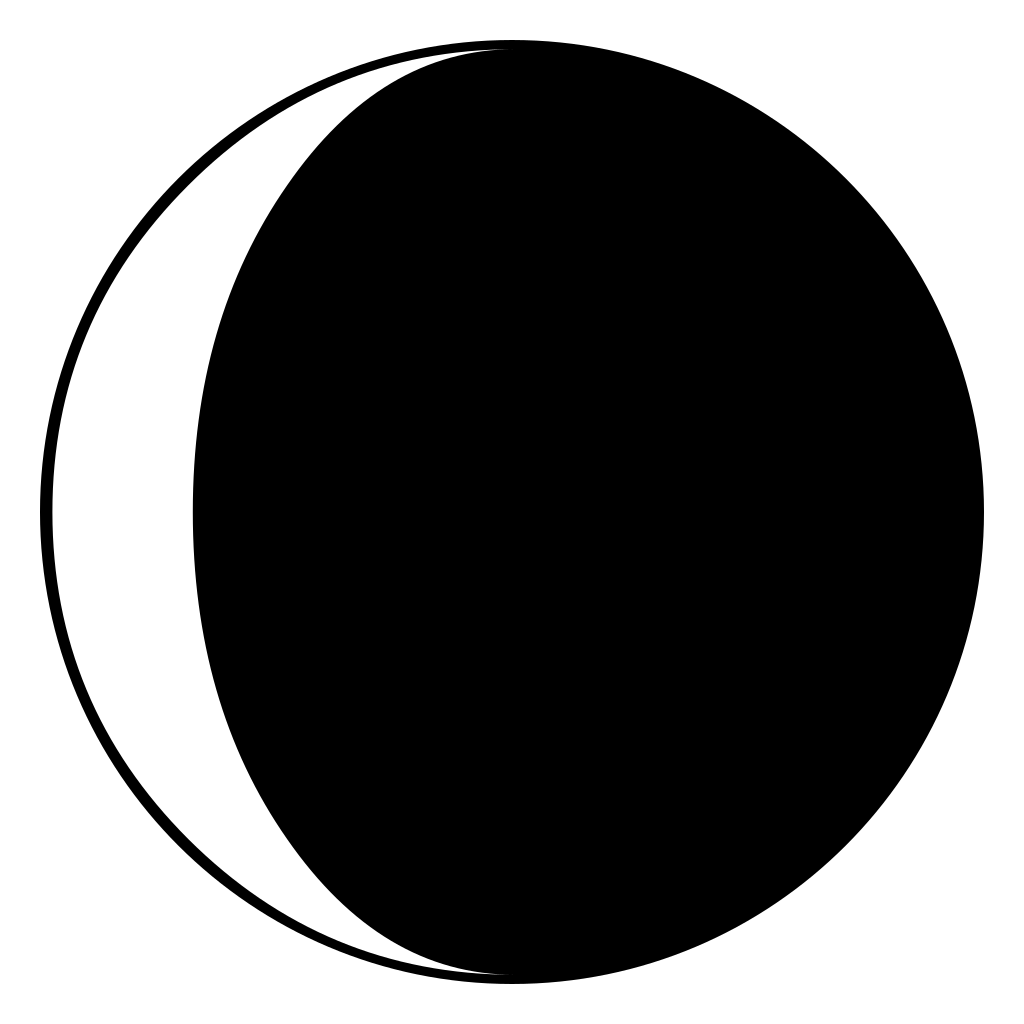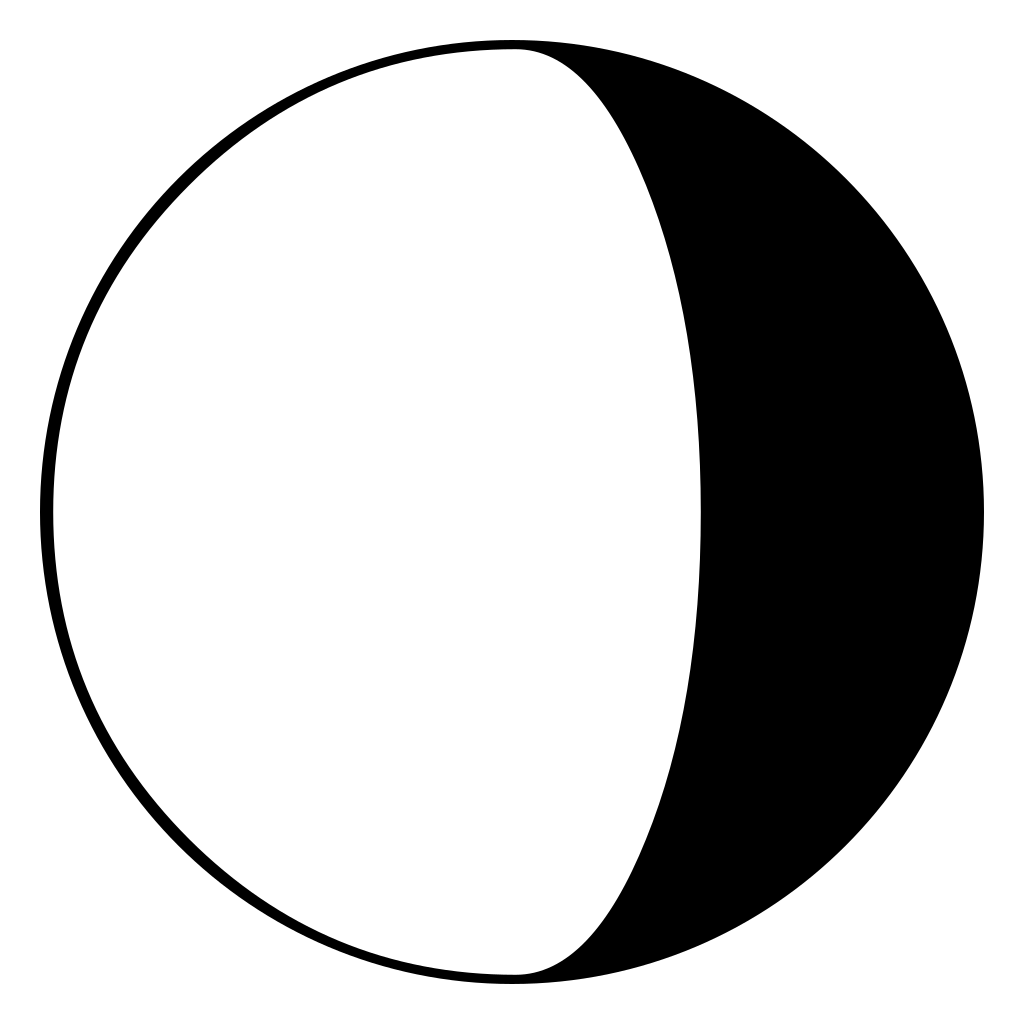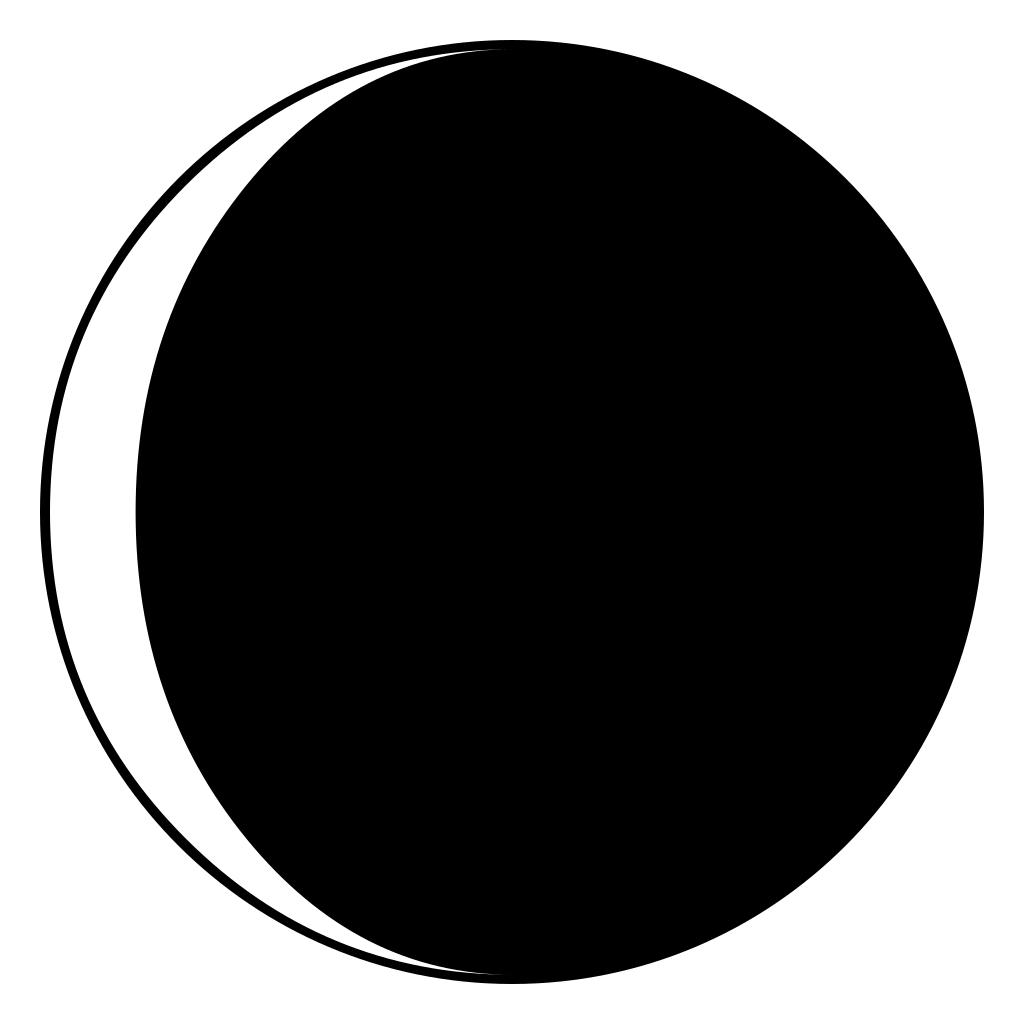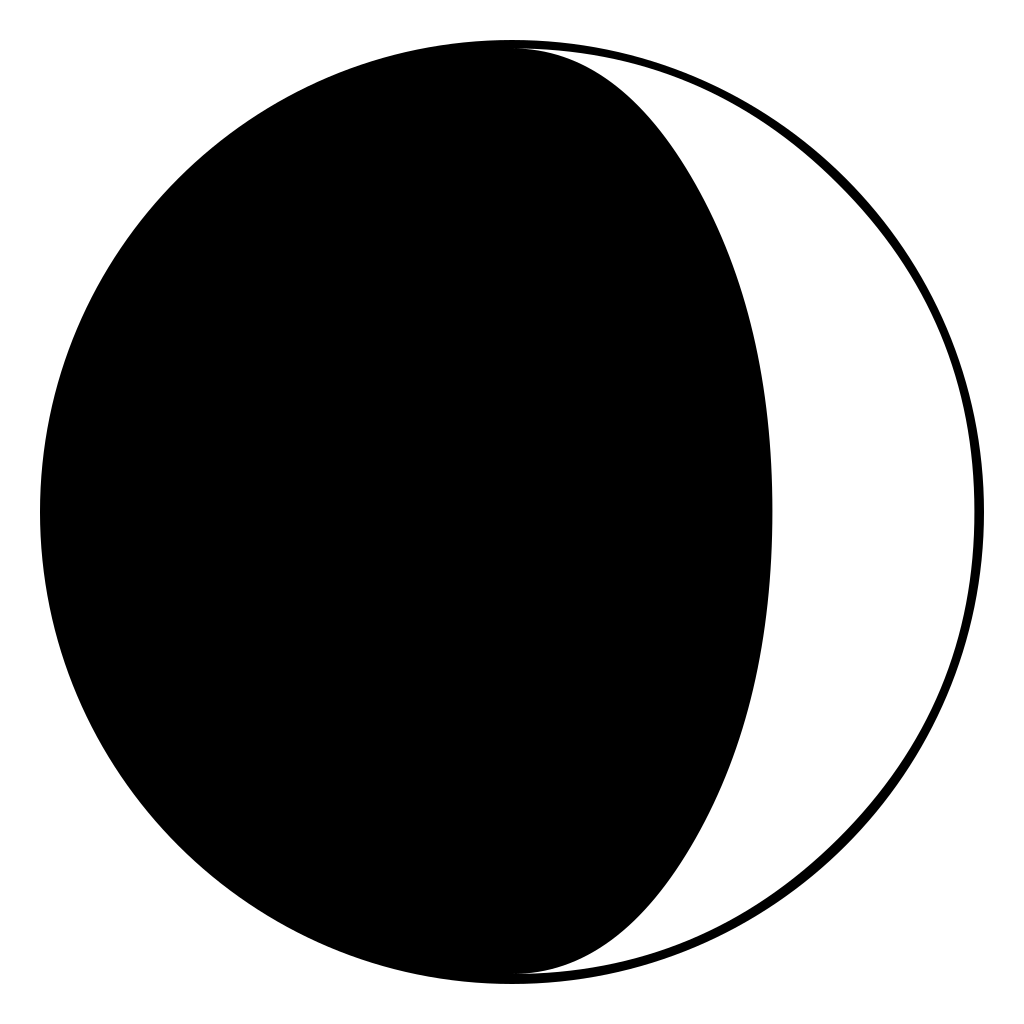
Moon Phases Symbols Font
Moon Phases Symbols Font. Moon phases regular moon phases 1. First quarter moon symbol, half moon.
At Present, Of These Moon Phase Symbols, Only (And That Is A Bit Odd) The Full Moon Symbol Has Text/Emoji Variation Sequences:
And can be inserted using alt code shortcuts.in addition, we have included “sky & weather” emoji symbols and created a complete list of alt code shortcuts for weather symbols. Crescent moon is one of the oldest symbols known to humanity. Leo zodiac constellation inside circular set of moon phases black outline silhouette of stars vector.
Moon Phases Font Is A Dingbats, Esoteric Font Designed By Curtis Clark.
Hand Drawn Illustration Of Cycle From New To Full Moon.